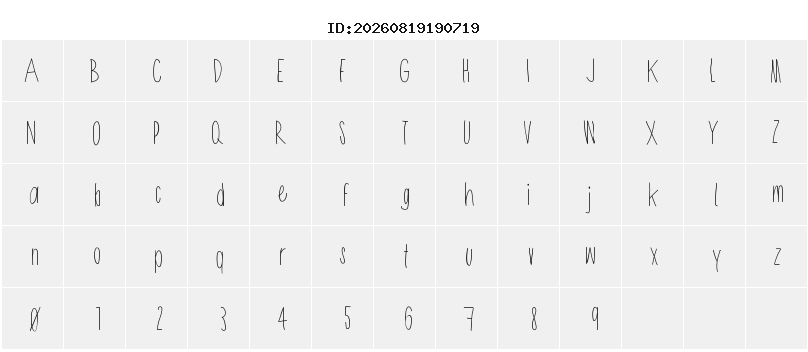
Shithead Preview
• Font Name: Shithead
• Font ID: NikkiRodriguez:Shithead
• Full Font Name: Shithead
• PostScript Name: Shithead
• Copyright: NikkiRodriguez
About Shithead.ttf
Shithead.ttf is a modern, elegant sans-serif font designed for ultimate readability and visual harmony. Perfect for branding, headlines, web design, and print materials.